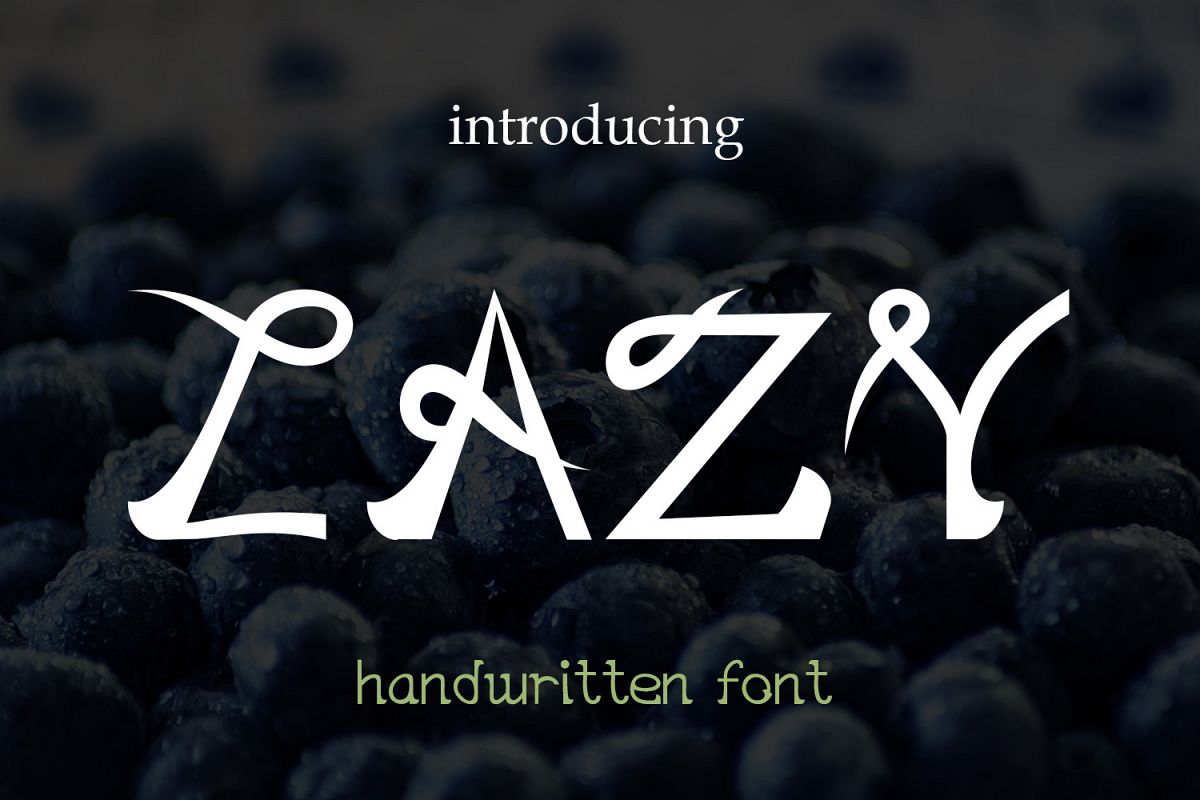
EP Lazy - handwritten font
EP Lazy
This font is perfect for wedding cards, quotes, headings, blogs, logos, invitations and more! Font includes all caps, punctuation, and numbers.